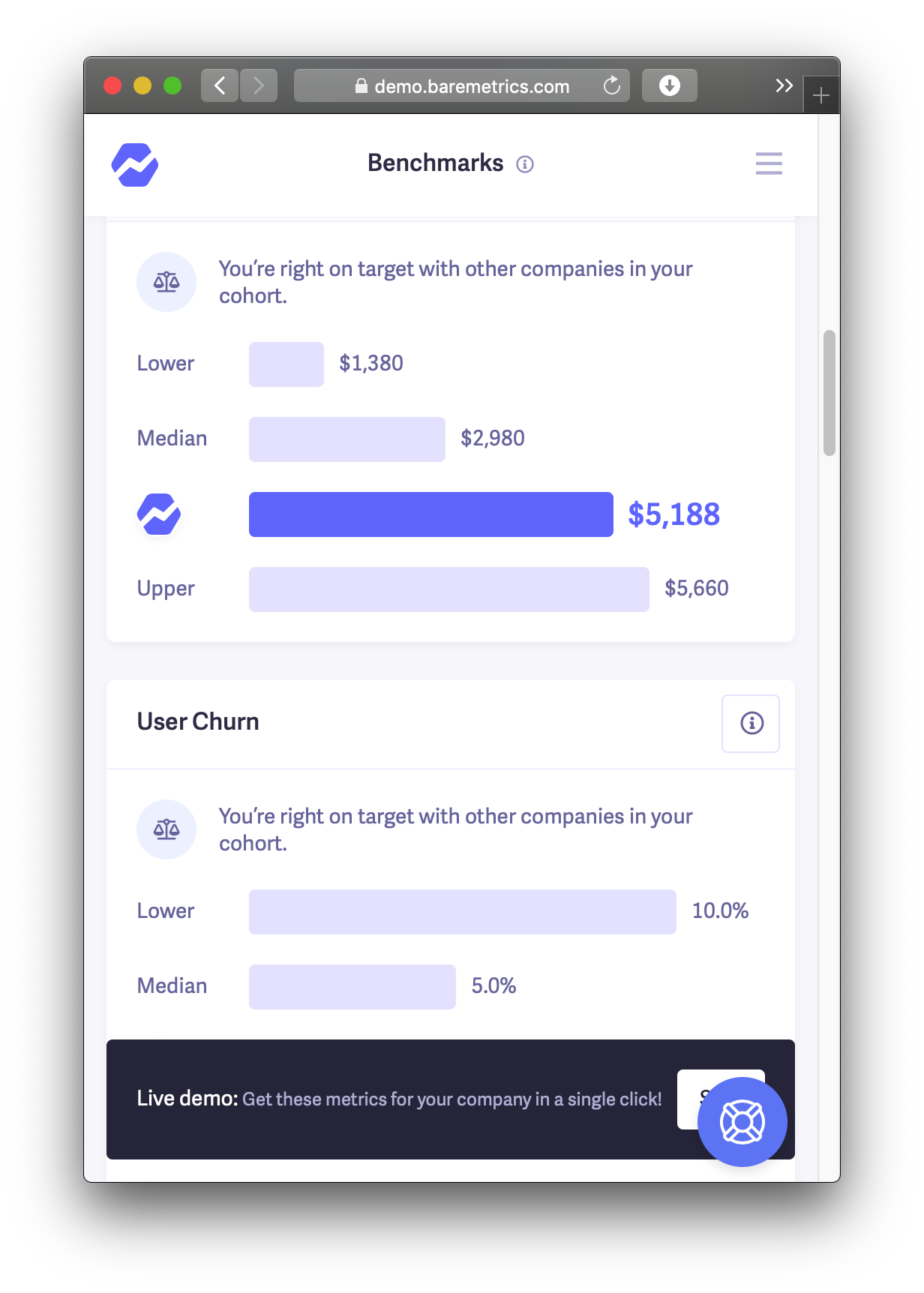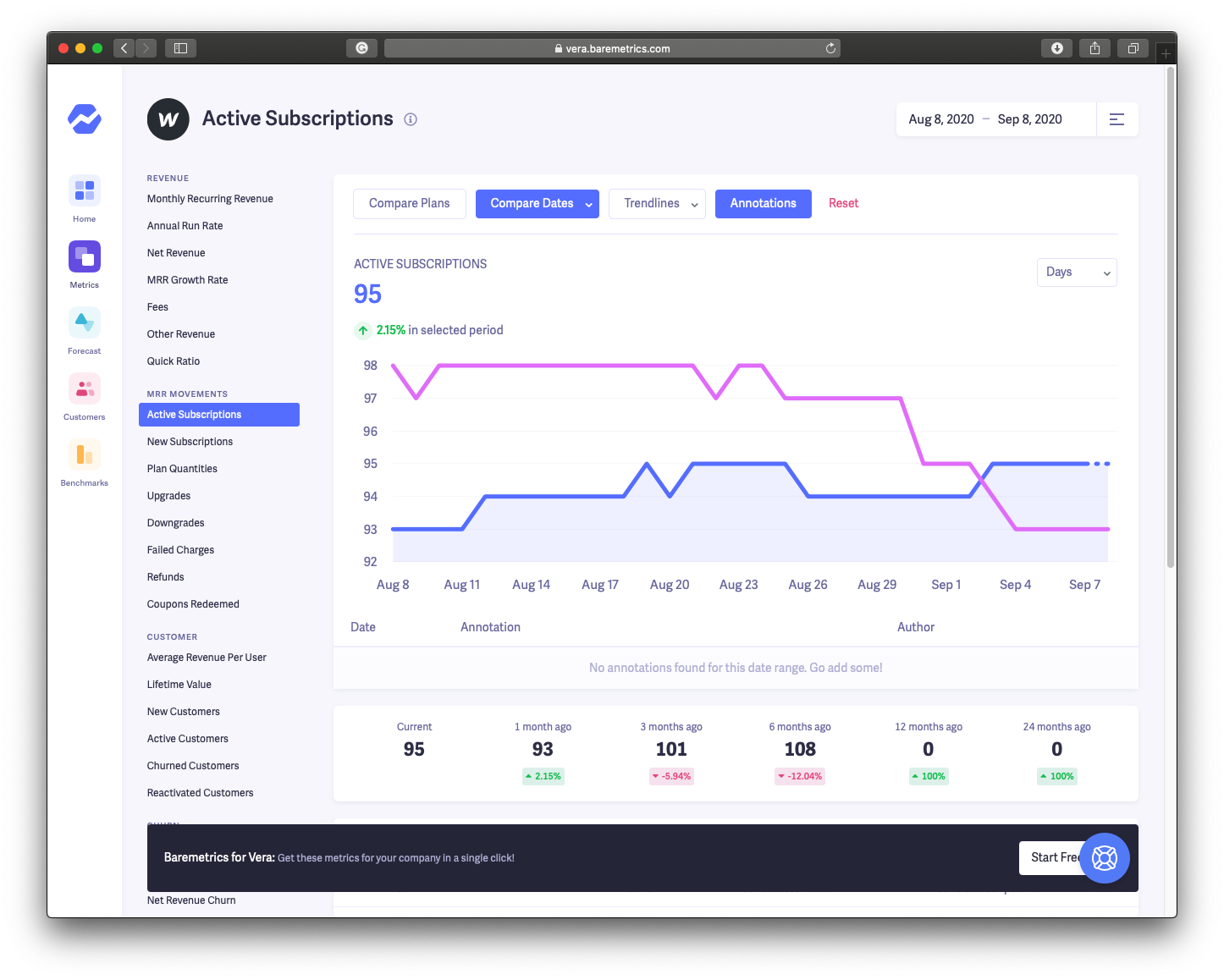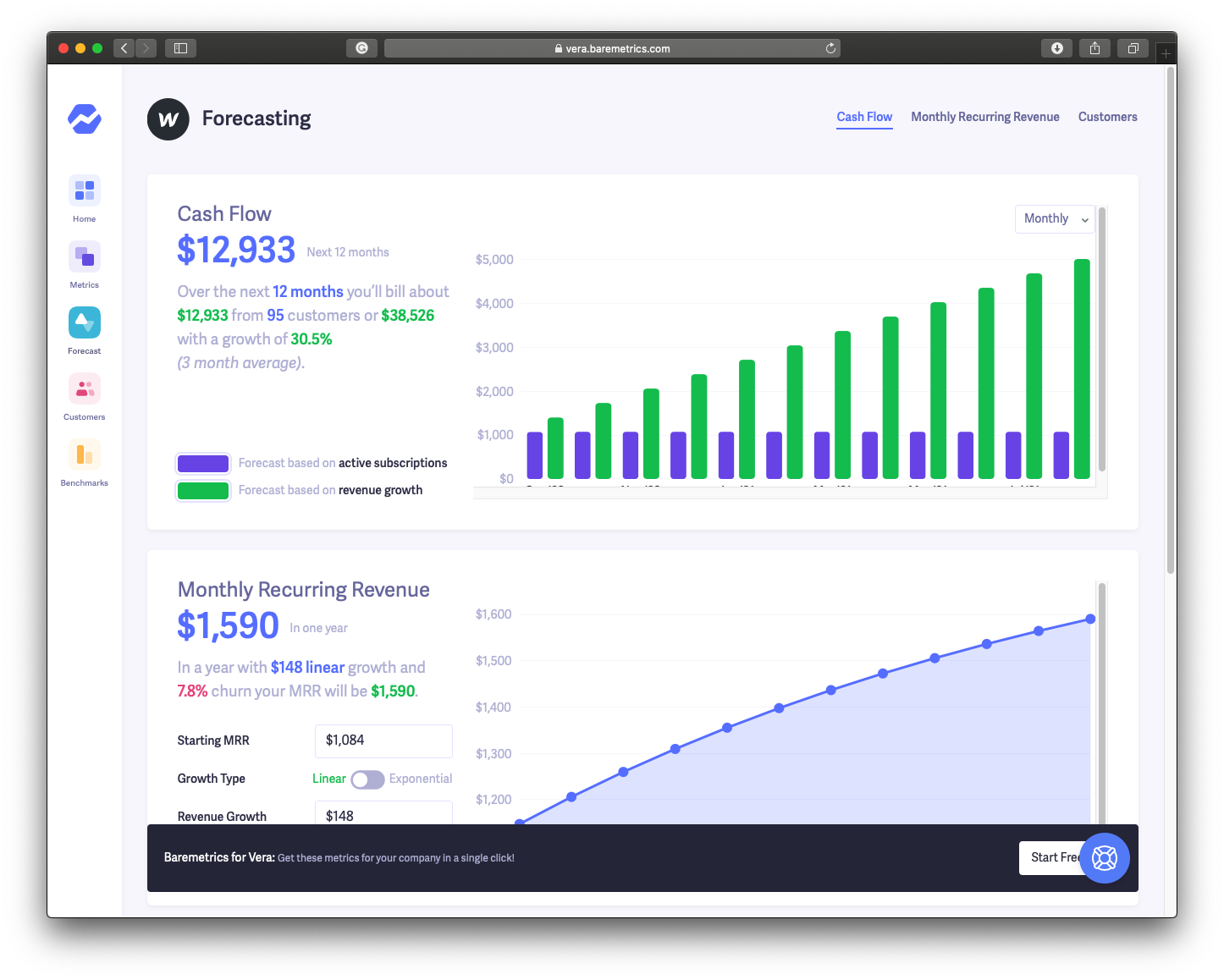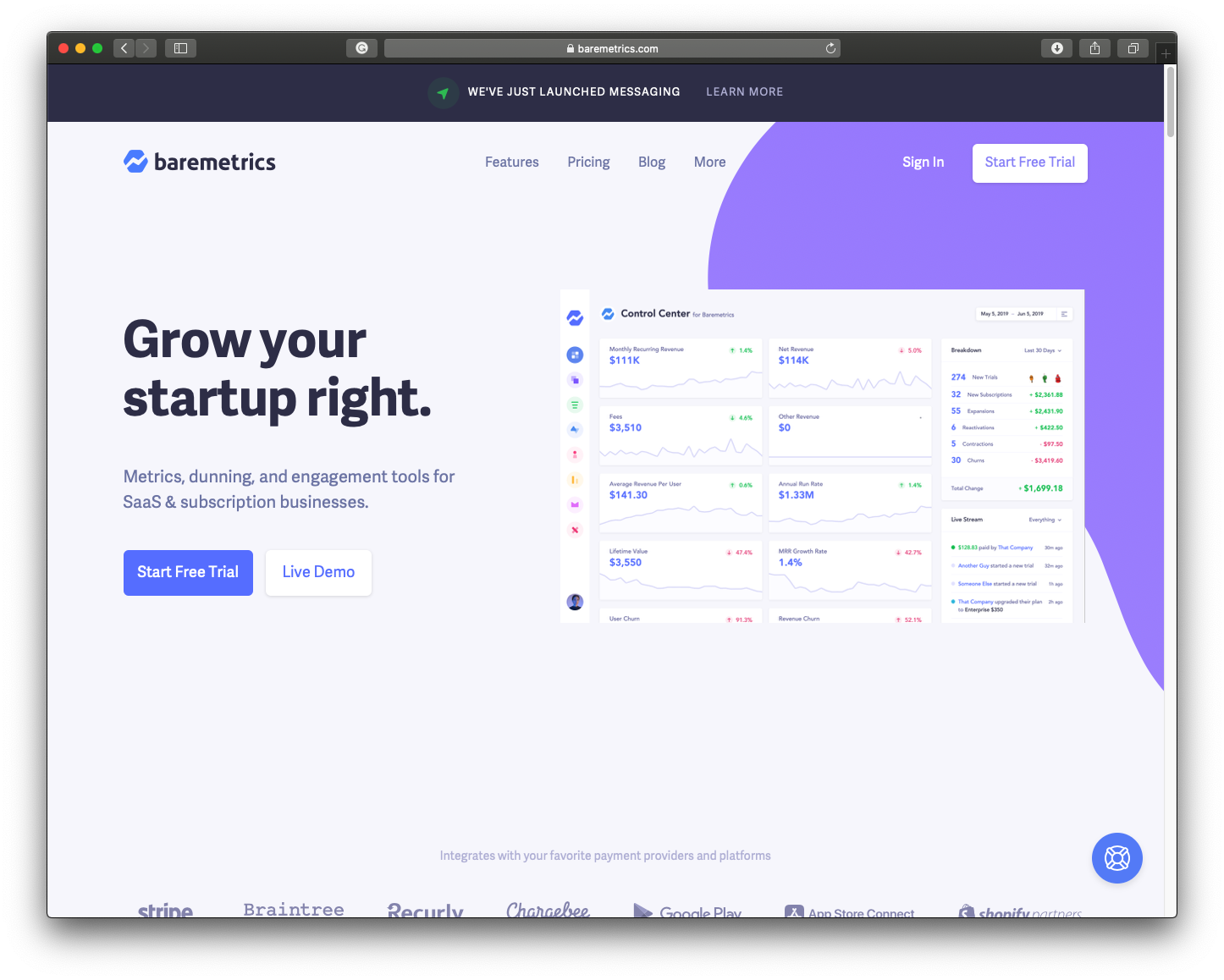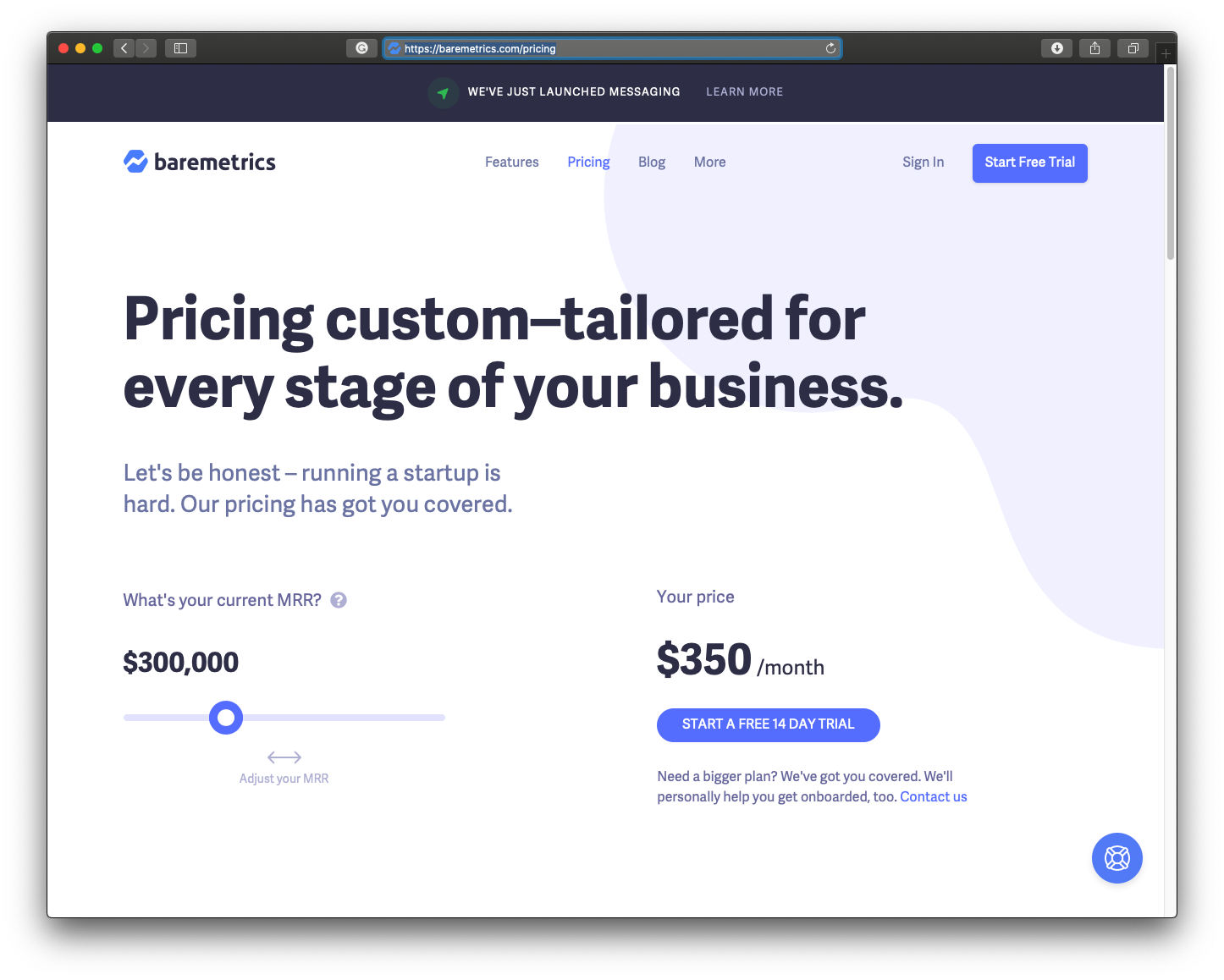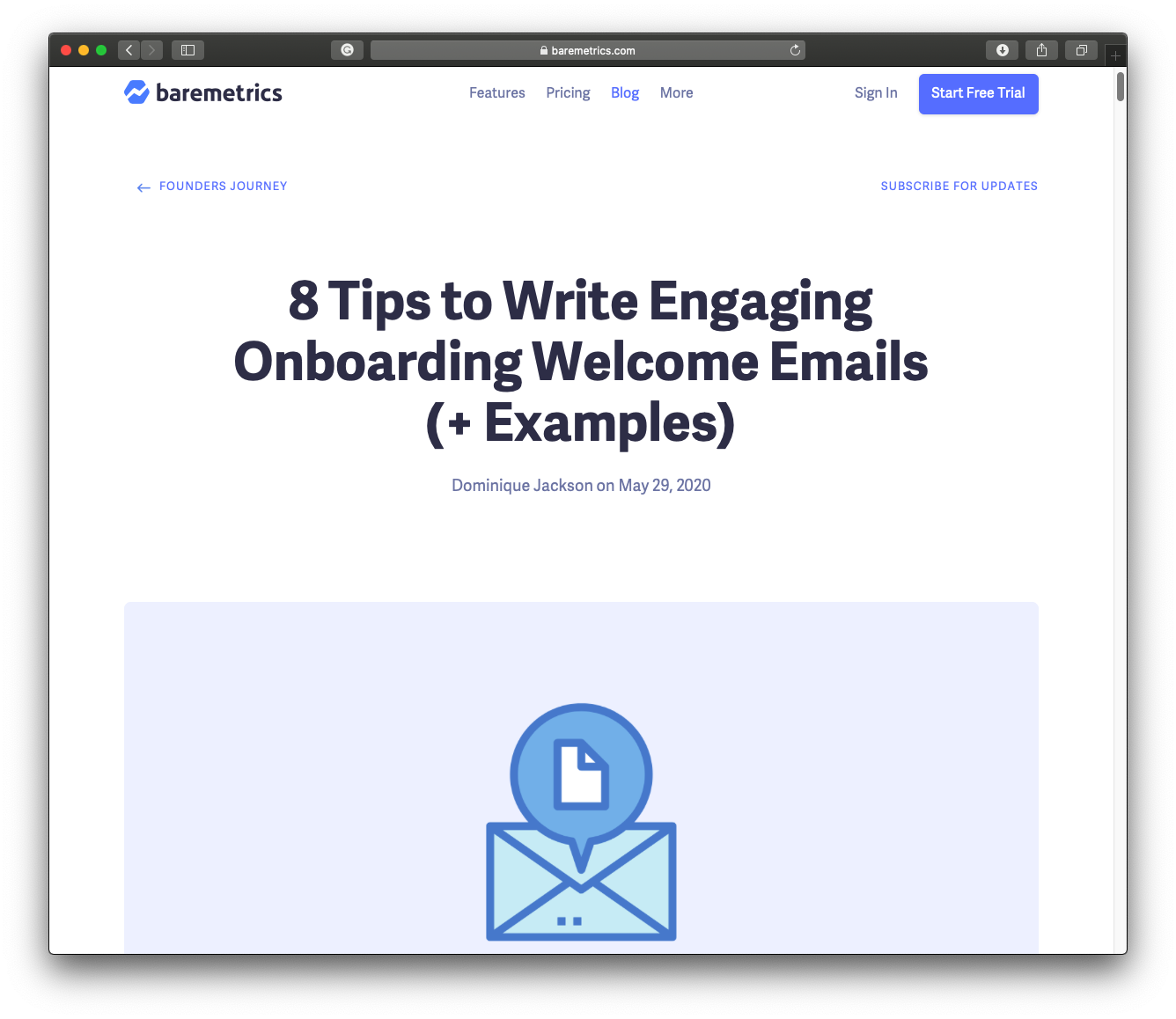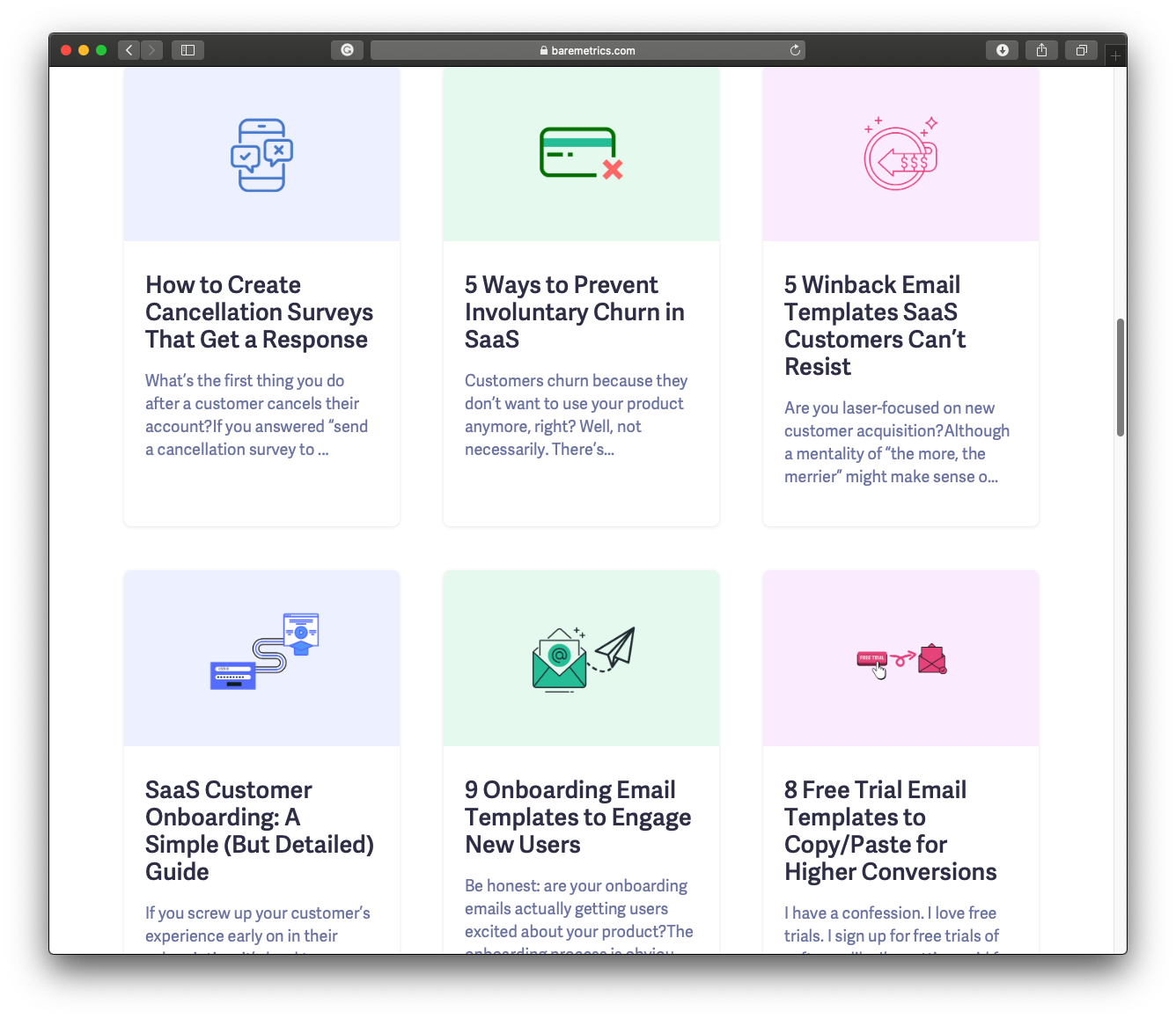
Baremetrics.com Analyses with Adelle Sans
Adelle Sans in use on the website for data analyser Baremetrics.
While analytics are important to track customers, finances, and engagement, they shouldn’t be laborious to look at or understand. Baremetrics does just that — makes engaging, refined analytics for startups so the company can focus on production and growth.
Start to finish, Adelle Sans runs the text show. All text, including the stats and numbers, remain in that nice humanist middle ground supplied by the Adelle Sans aesthetic: warm, not overwhelming or sterile, and clear at all times. And with numbers this beautiful and clear, we think a lot more people would want to look at spreadsheets.